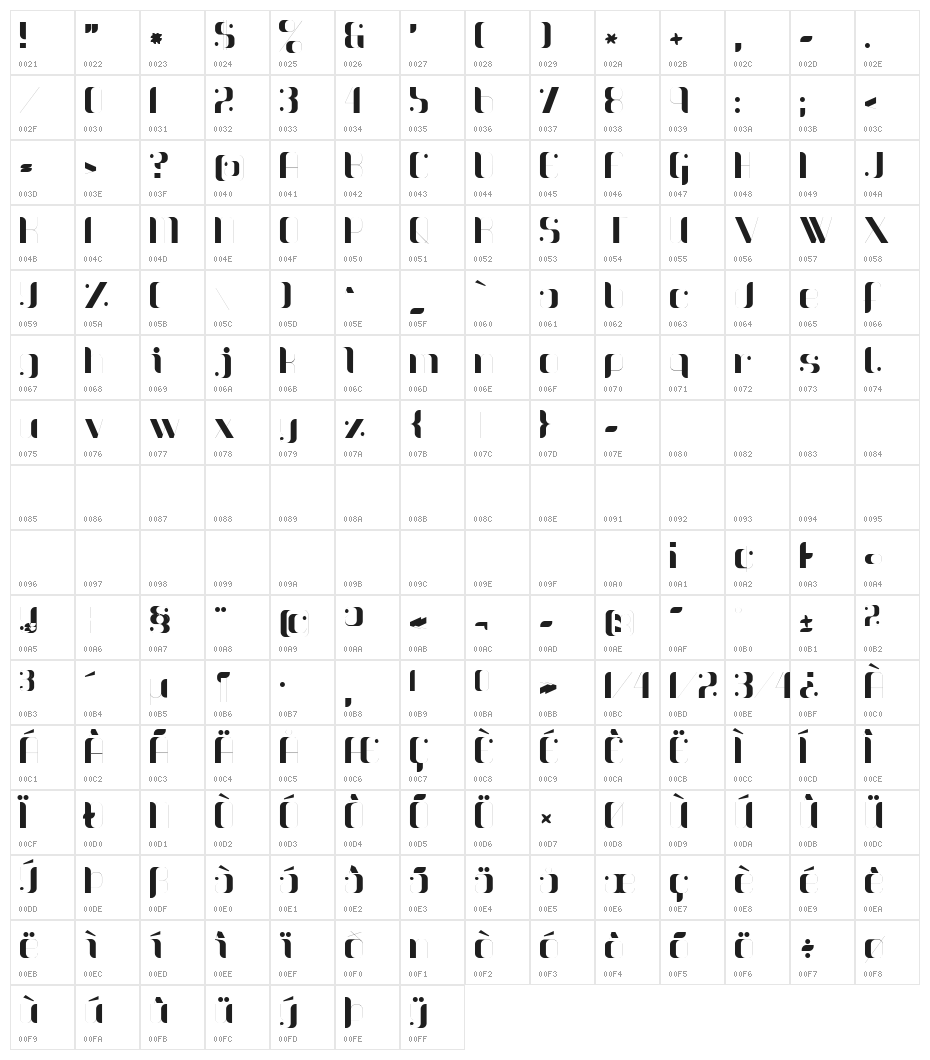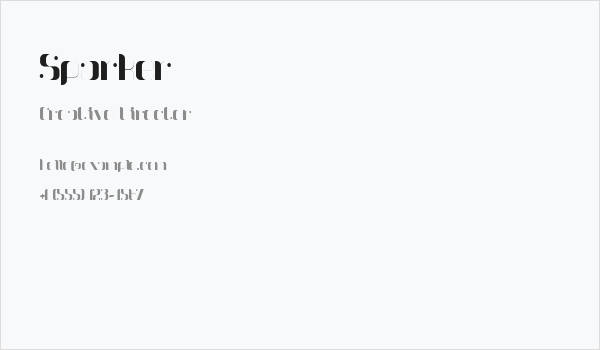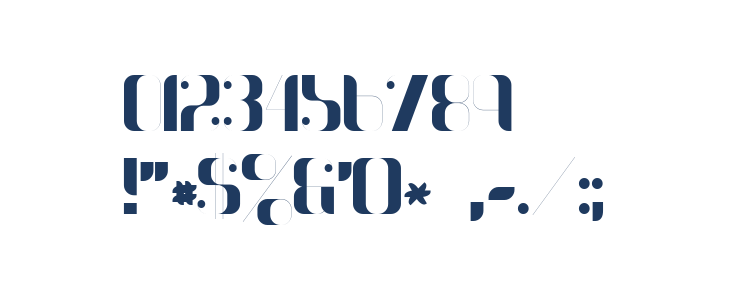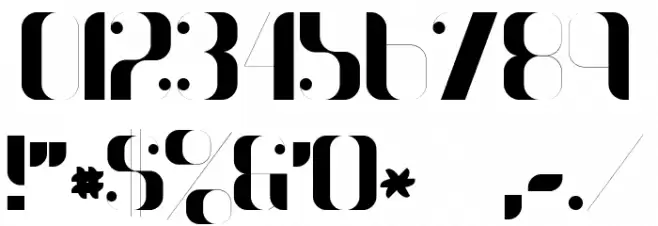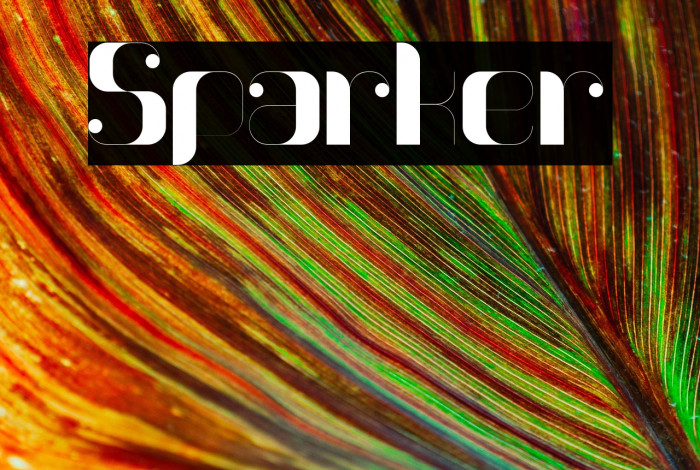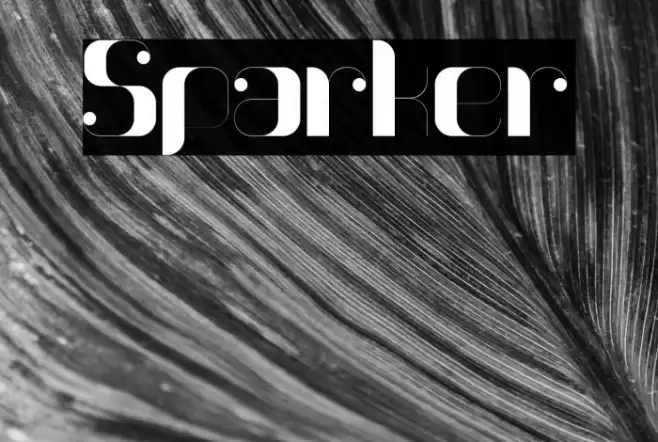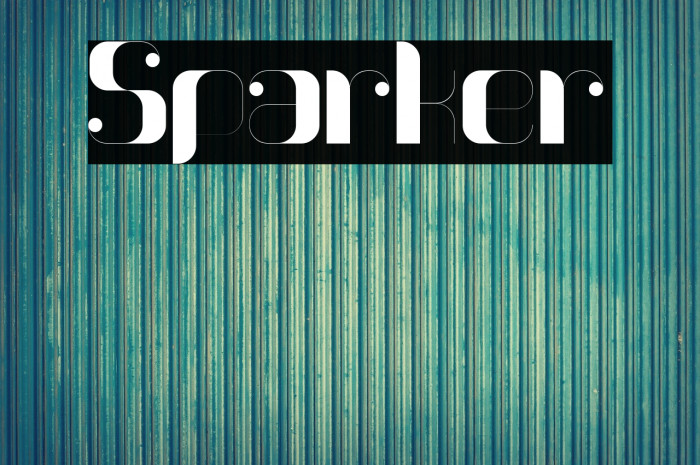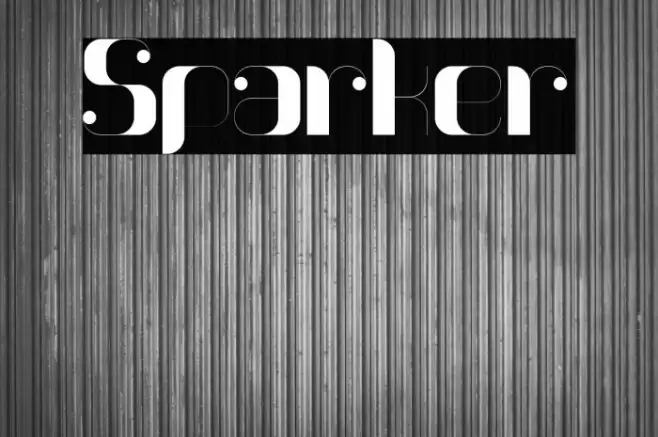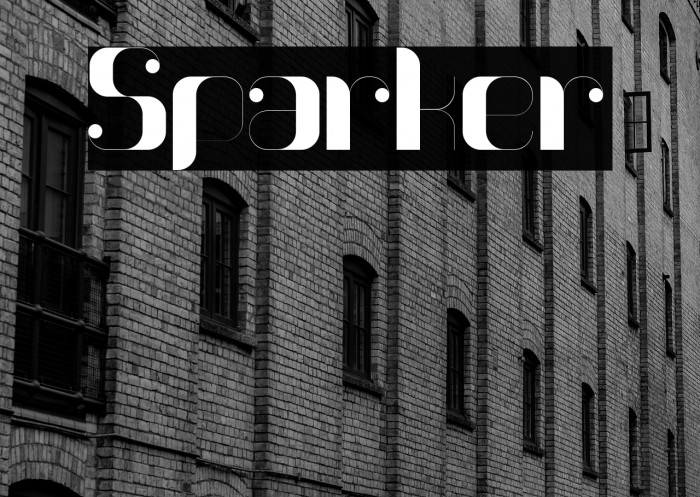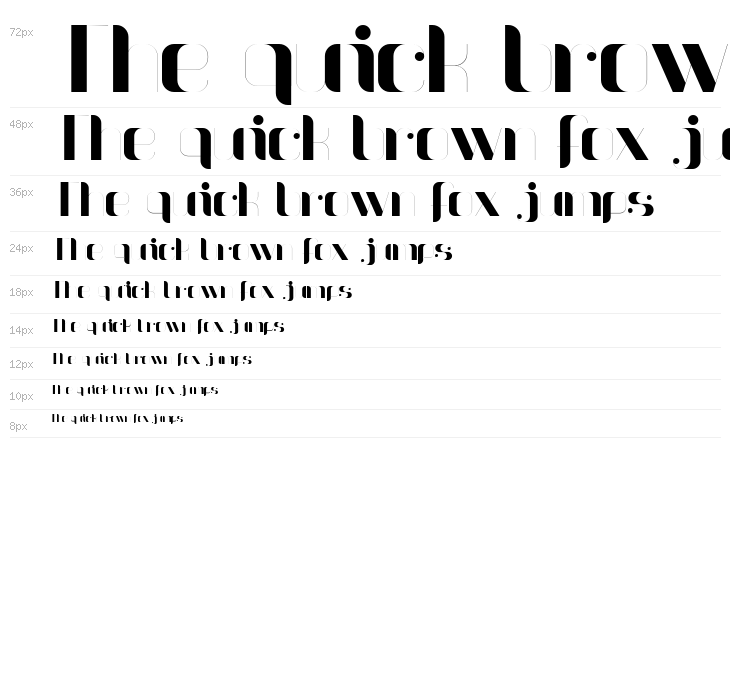
Sparker Font
Sparker Description
This font features a unique and modern design with a high contrast between thick and thin strokes. The characters are constructed with a combination of bold, solid lines and delicate curves, creating a striking visual impact. The use of negative space is prominent, giving the font a futuristic and artistic feel. The uppercase and lowercase letters maintain a consistent style, while the numbers and special characters complement the overall aesthetic. The font's geometric shapes and clean lines make it suitable for contemporary design projects.
| Overall Style | Modern, Artistic |
| Proposed Projects | Ideal for branding, posters, album covers, and digital artwork. |